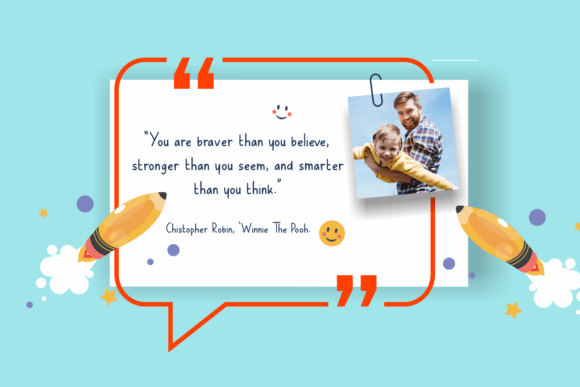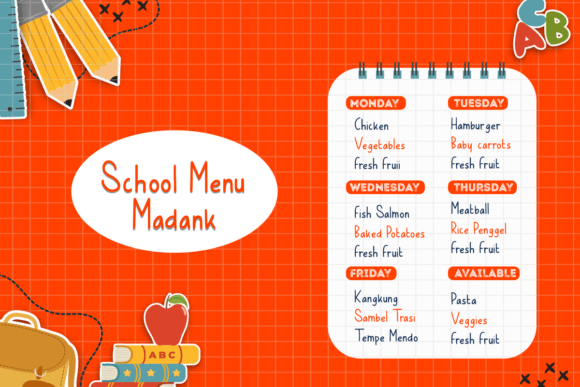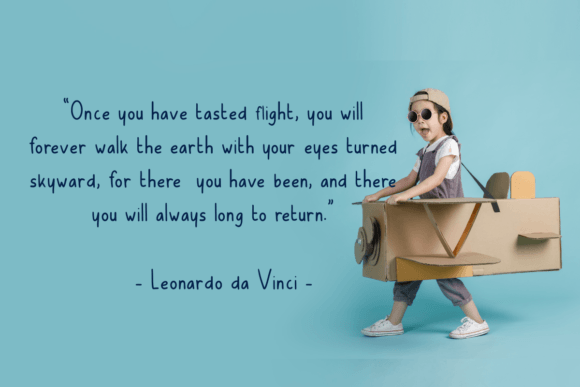
Introduction to Queen Sunny Font
Queen Sunny is a clean, relaxed and friendly handwritten font.
Suitable to a wide variety of designs due to its neat and simple style, this font has the potential to become your favorite go-to font, no matter the occasion .
Key Features of Queen Sunny Font
Why Choose Queen Sunny Font?